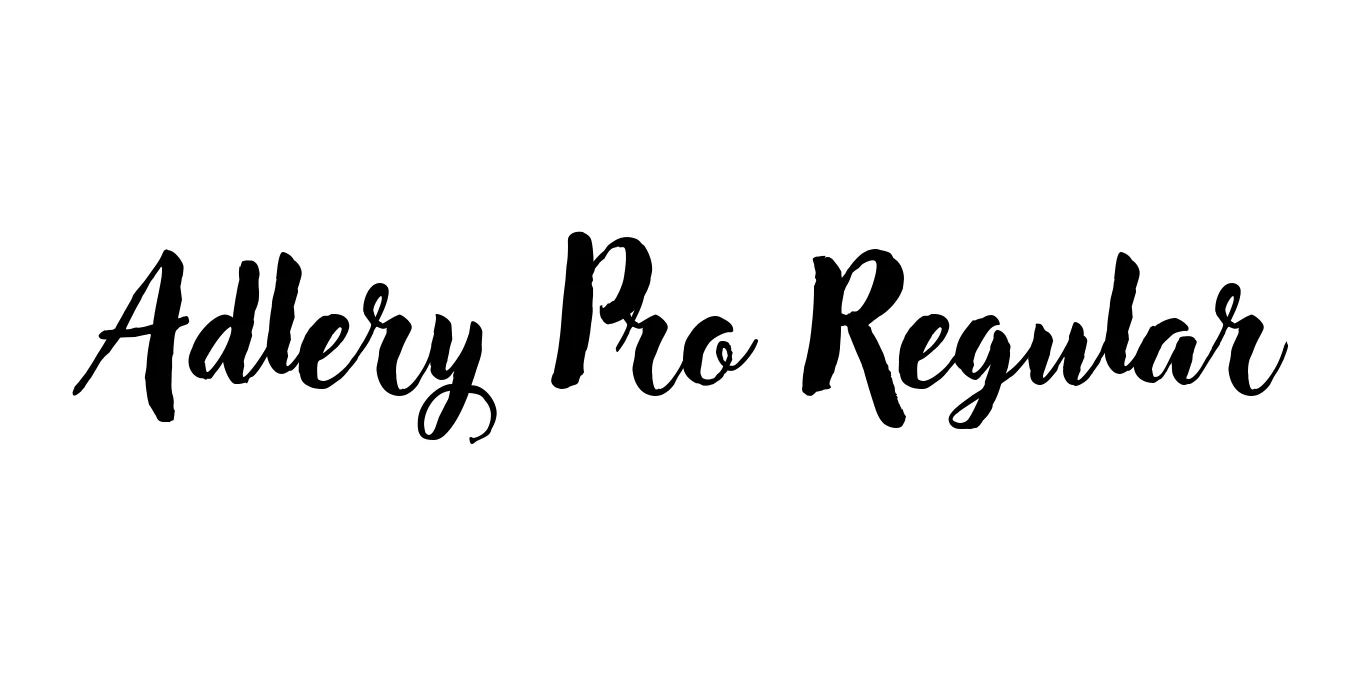
Adlery Pro Regular
Designed by Cosimo Lorenzo Pancini and Andrea Tartarelli (Zetafonts)
| Category | Script / Brush Handwriting |
Adlery Pro Regular is a sophisticated handwriting typeface developed by the renowned designers Cosimo Lorenzo Pancini and Andrea Tartarelli for the Italian type foundry, Zetafonts. Rooted in the aesthetic of contemporary brush lettering, it was meticulously crafted to bridge the gap between spontaneous manual calligraphy and the functional requirements of modern digital typography. Its fluid, rhythmic strokes and expressive swashes provide a distinctively human feel, making it a standout choice for high-impact creative projects.
The Pro version of this typeface features a robust set of OpenType features, including extensive ligatures, stylistic alternates, and broad language support. These technical enhancements allow the font to replicate the natural flow of handwriting more authentically, preventing repetitive patterns and ensuring a unique look for every design. It has since become a favored tool for designers seeking an elegant yet approachable script for everything from high-end branding to sophisticated editorial layouts.
Adlery Pro Regular Best Uses
Excellent for creating unique, signature-style logos and corporate identity systems.
Highly recommended for wedding invitations, formal greeting cards, and event programs.
Provides an authentic, handcrafted aesthetic for inspirational quotes and promotional graphics.
Adds a sophisticated human touch to magazine headlines, pull-quotes, and book covers.